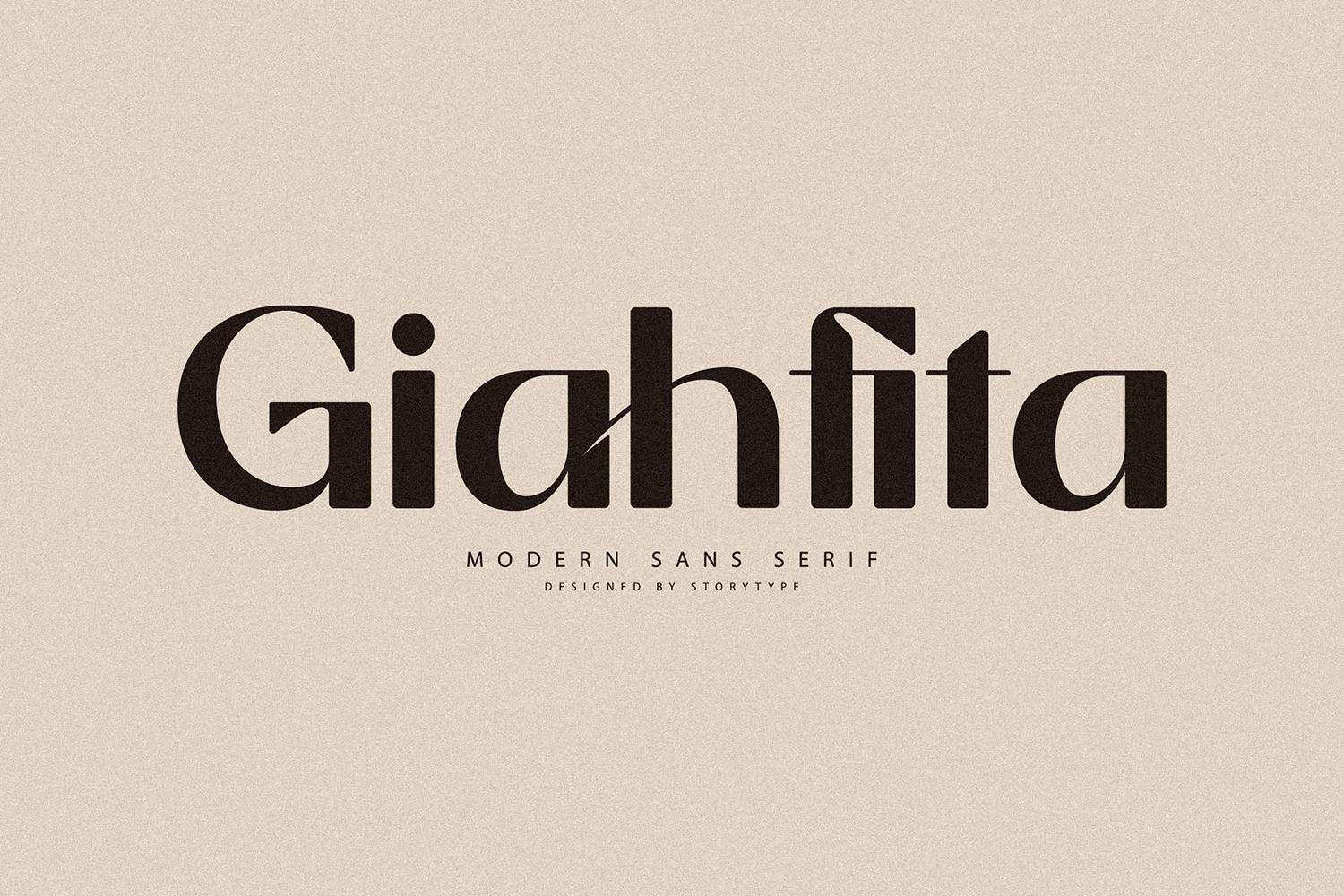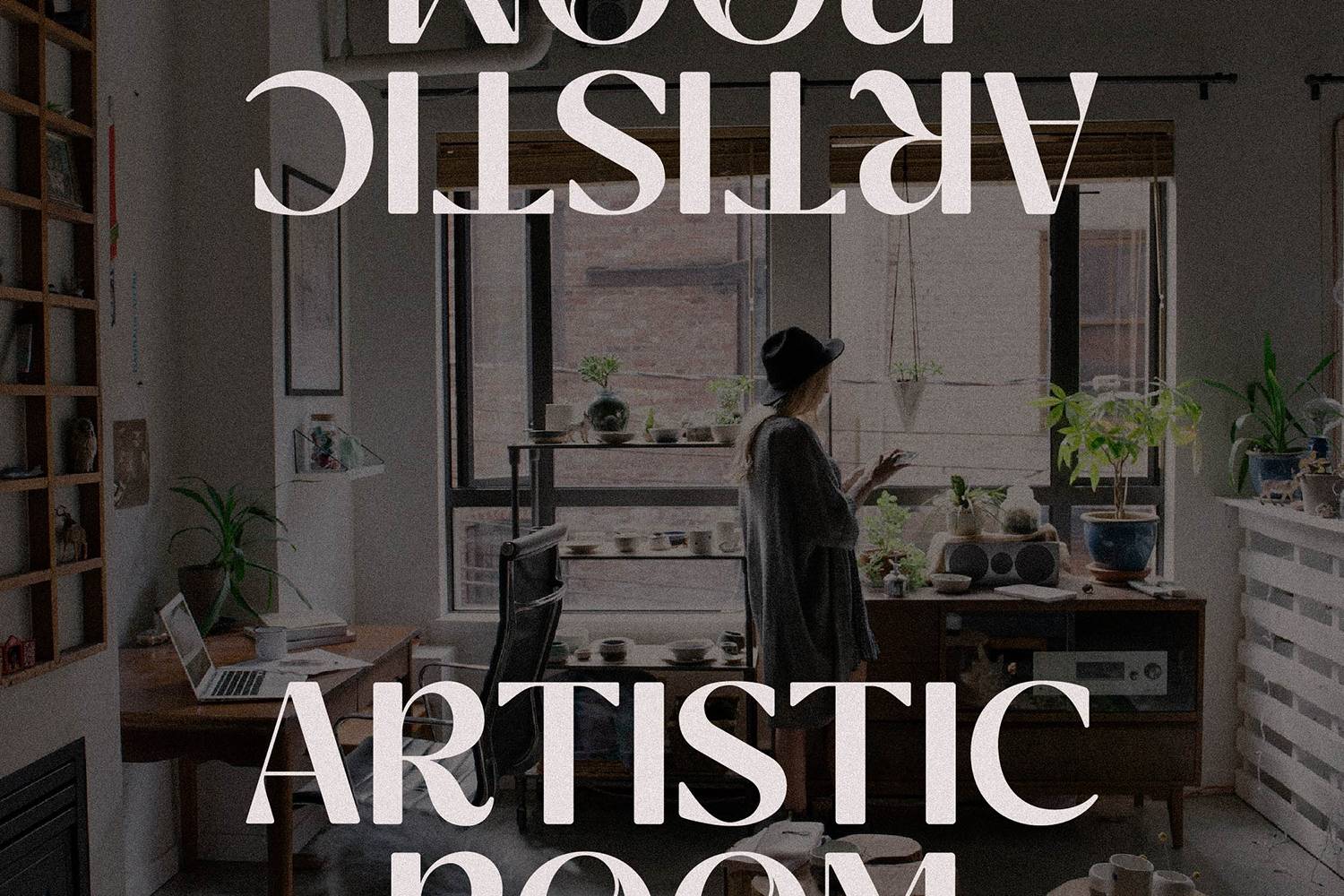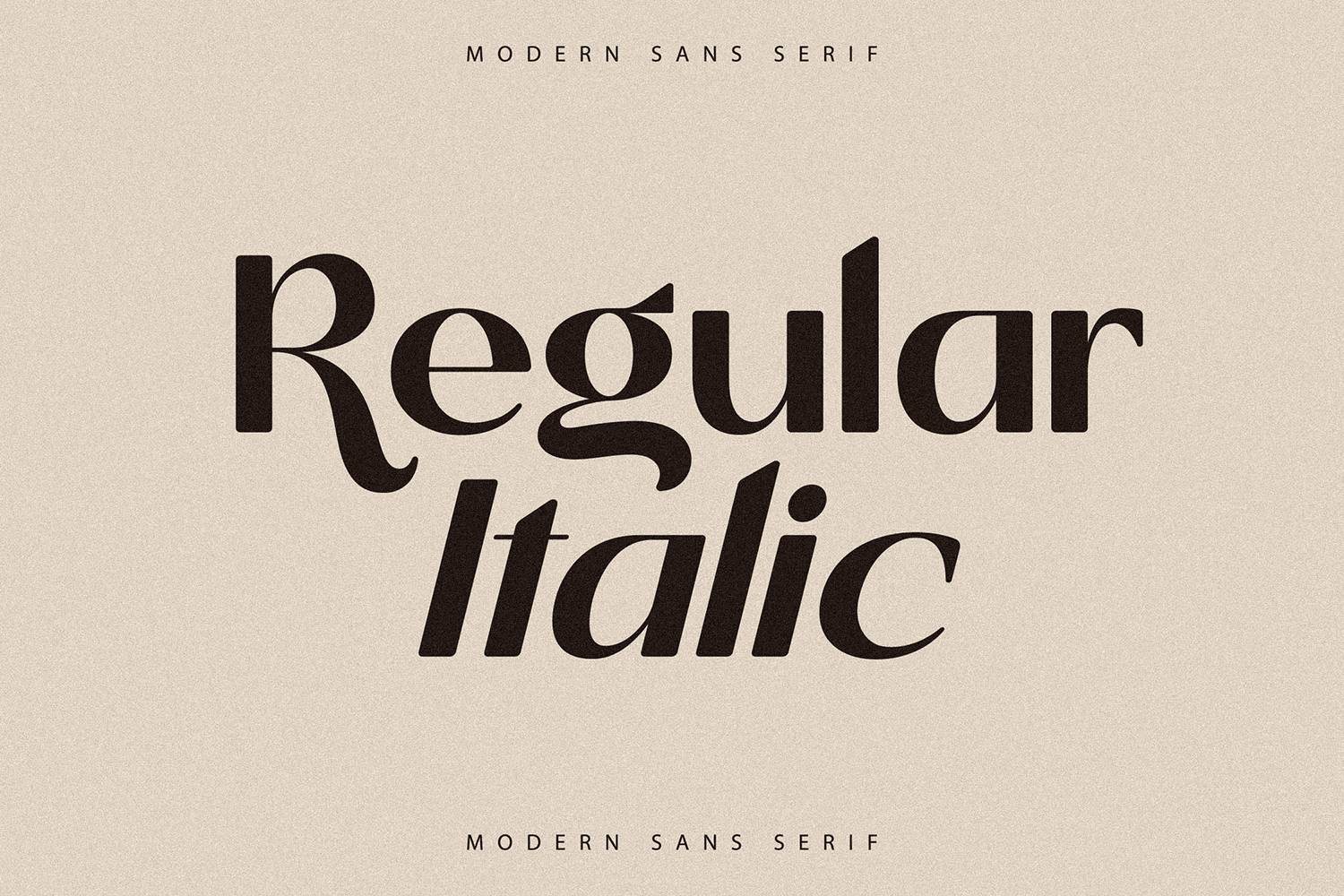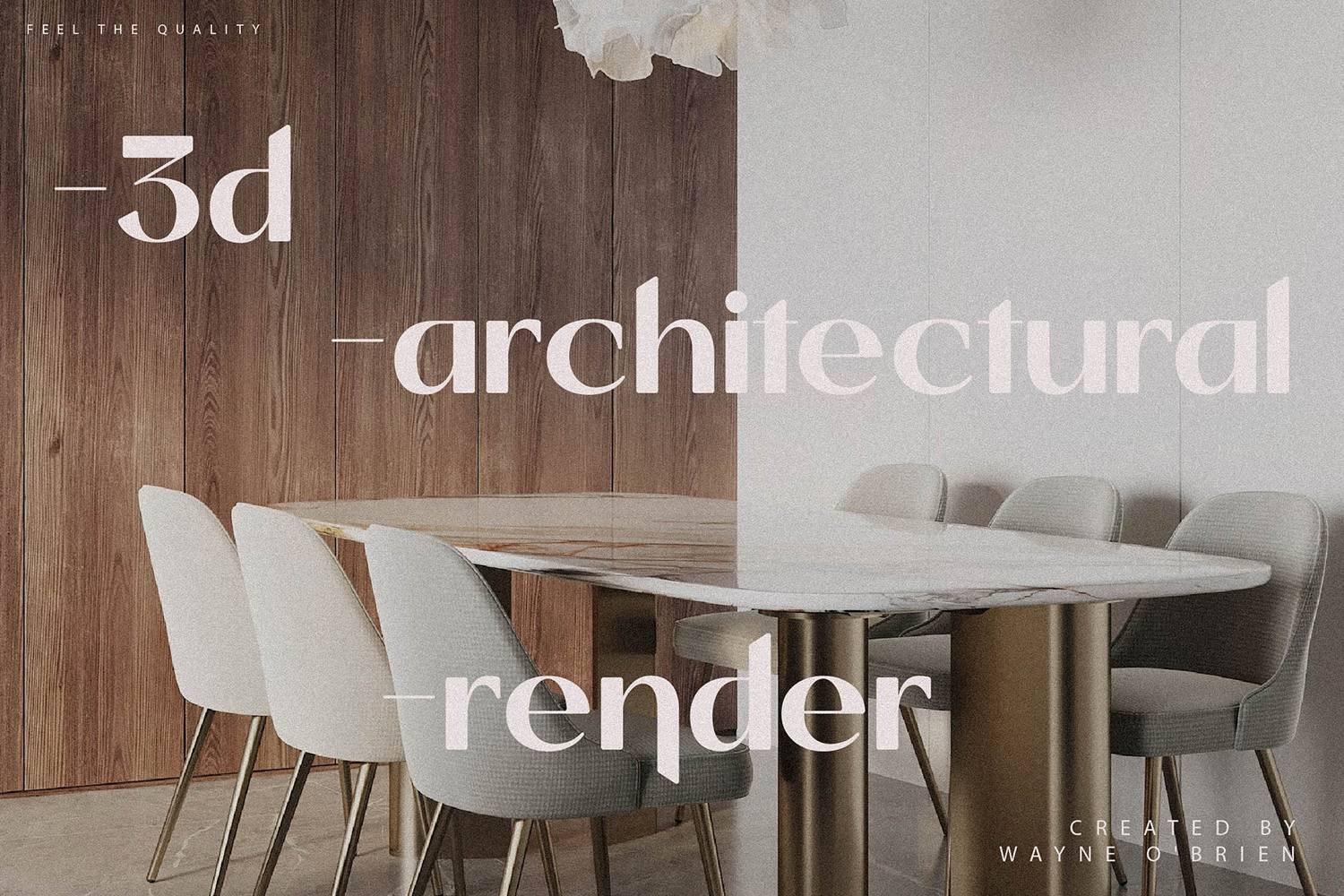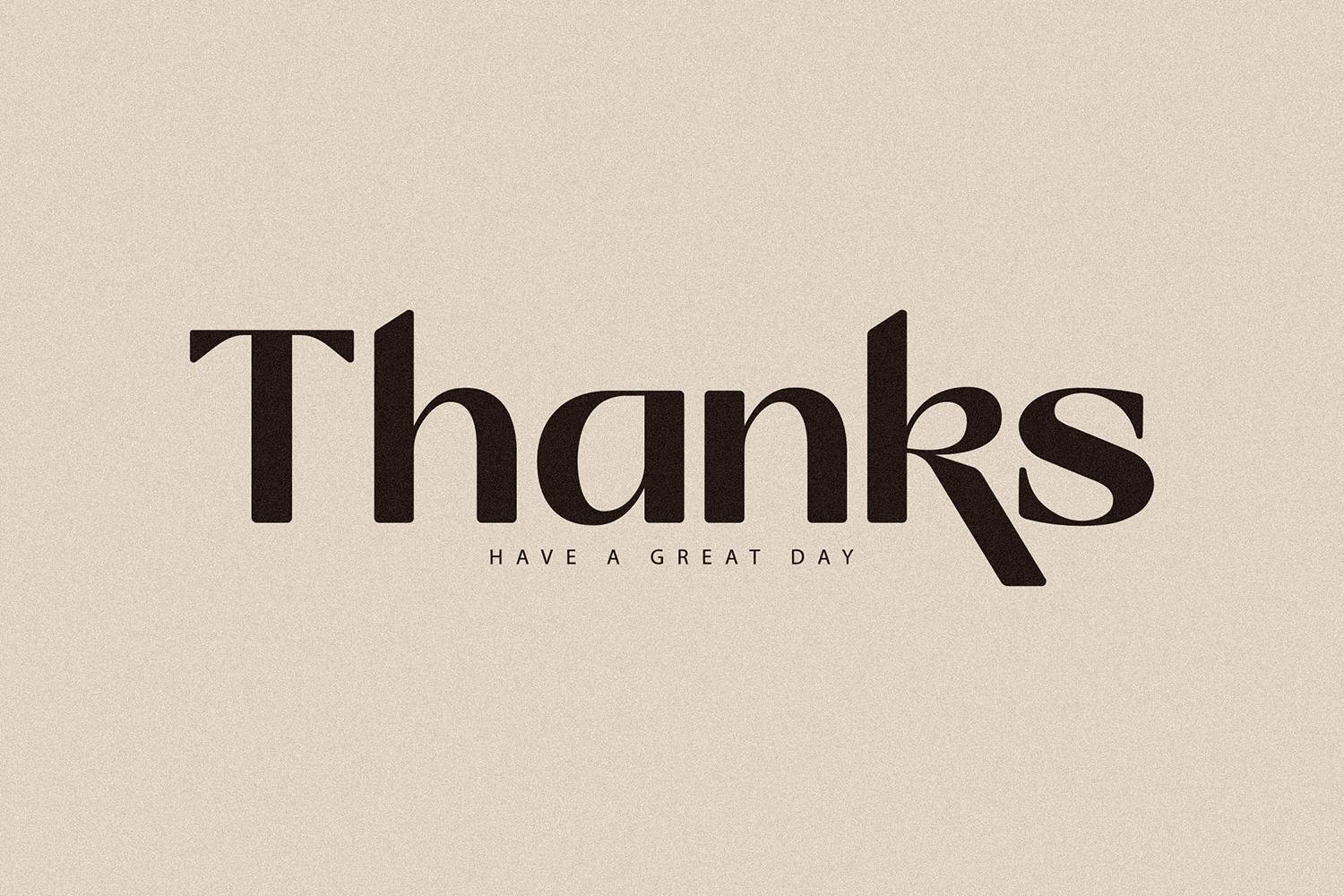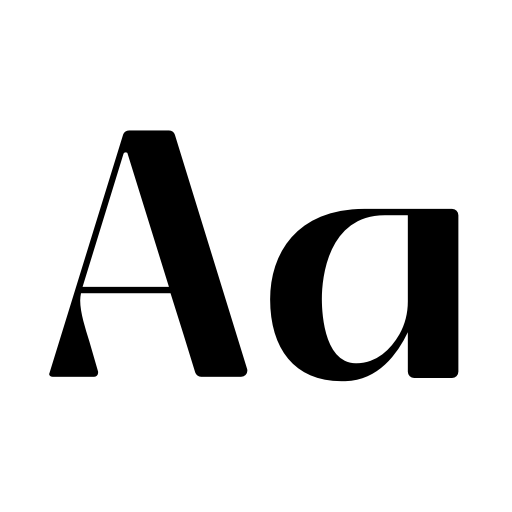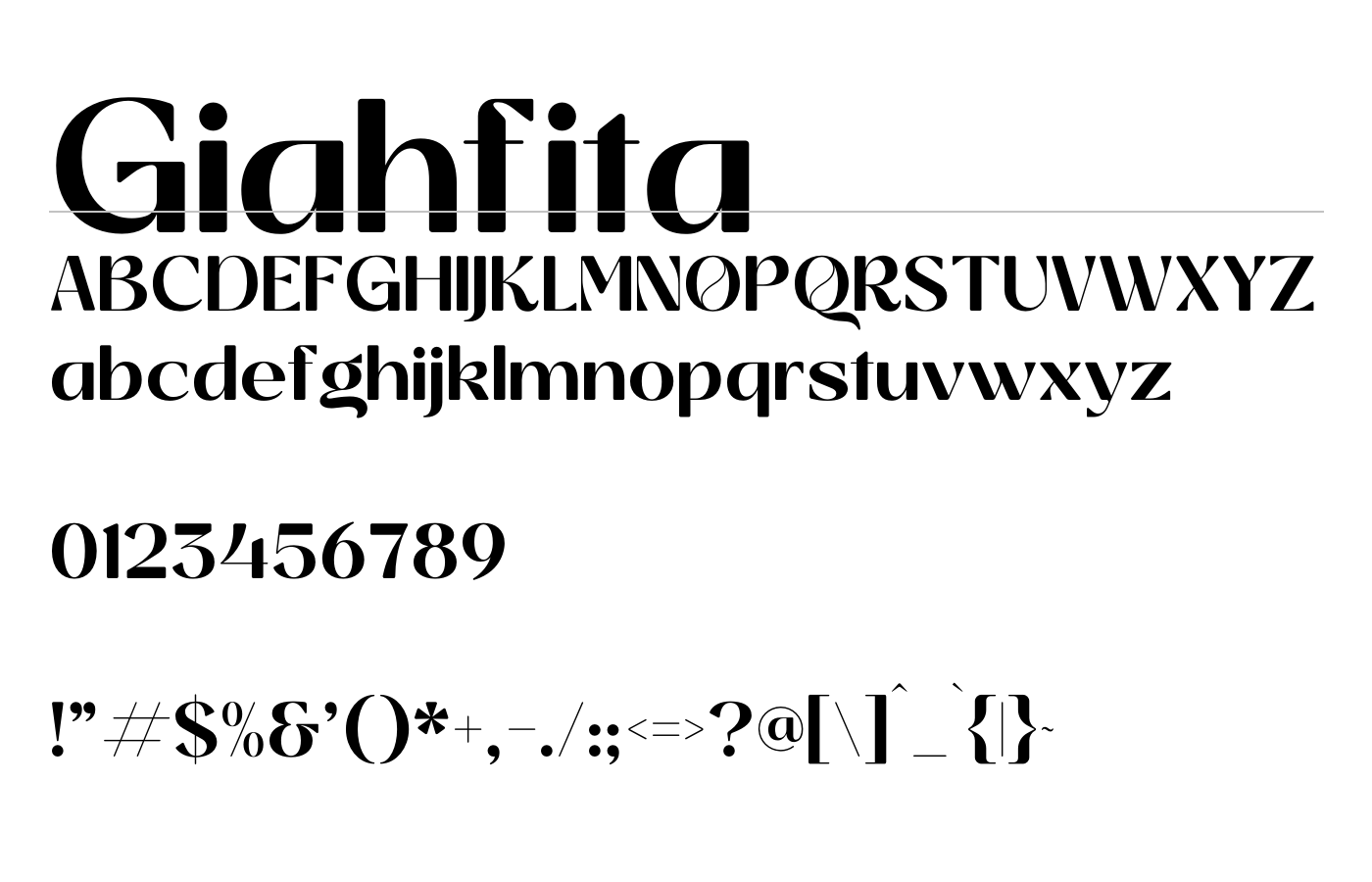
Giahfita is a bold serif font with strong contrasts between thick and thin strokes, featuring elegant, curved serifs and a distinctive modern flair. Its unique letterforms like the stylized "Q" and single-story "g" give it a sophisticated yet contemporary personality, making it ideal for luxury branding, editorial headlines, and high-end packaging where a blend of classic and modern style is desired. This font works well in designs that need to stand out with elegance and authority.
Giahfita Font
About Giahfita Font